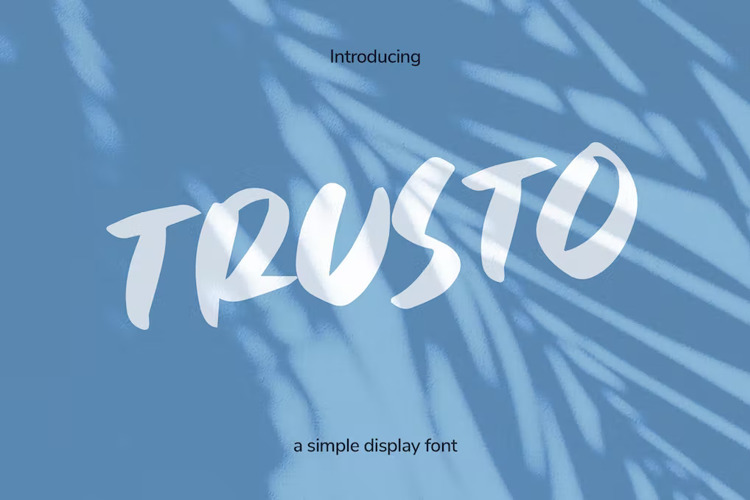
Trusto Font
About Trusto Font
Trusto is a casual hand-written font. Best for both large display and smaller lines/sub. You can use this font for poster headline, social media post, flyer, t-shirt, merchandises, logo, and etc. This font will be an eye-catch in your layout, a punch line, an emphasys, or you can combine this font with a clear sans-serif font to create modern look & feel.